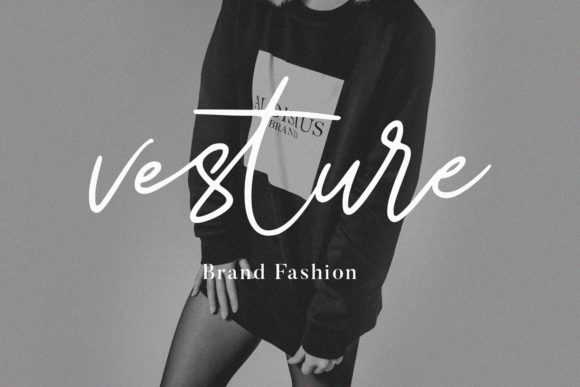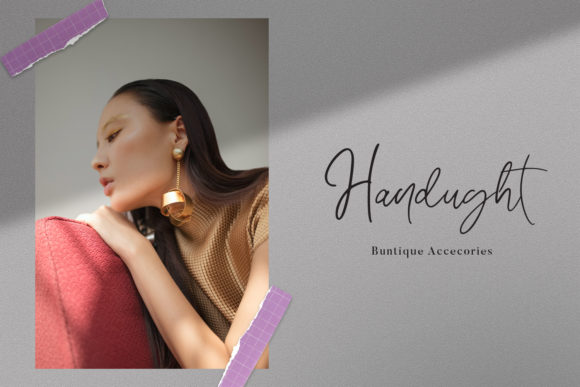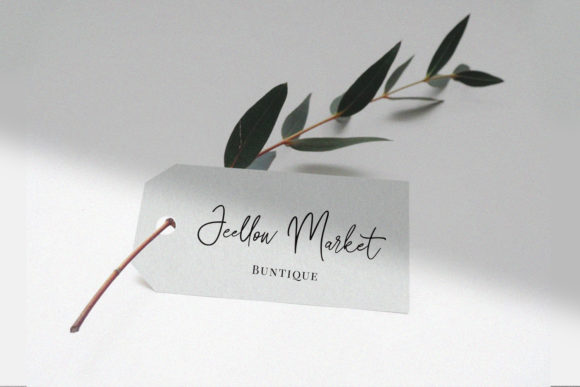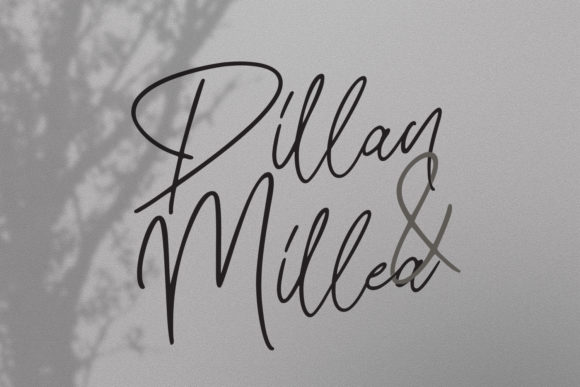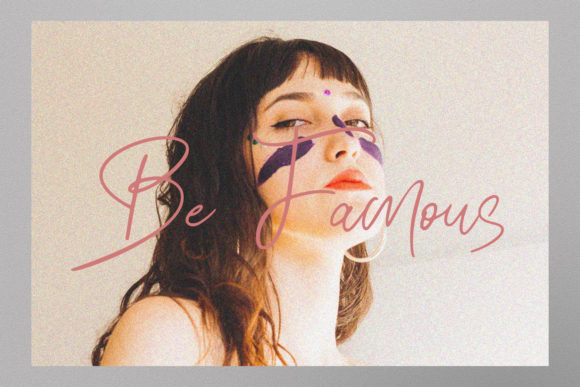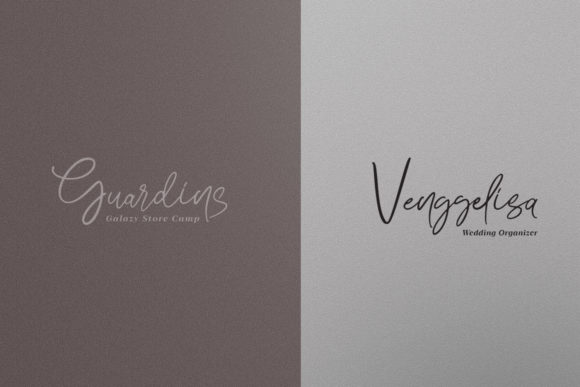
The Perfect Signature: Elevate Your Design with Bunggi Signature Font
Have you ever been in the middle of a design project, scrolling through font options, and suddenly, you stumble upon the perfect script font that screams “me”? That’s what happened to many designers when they discovered Bunggi Signature Font. Its unique blend of modernity and elegance makes it the perfect addition to any design project.
Bunggi Signature Font is more than just a font – it’s a statement piece that adds a personal touch to your designs. Whether you’re a graphic designer, a digital artist, or a branding expert, this font is sure to elevate your work and leave a lasting impression. With its versatility and sophistication, Bunggi Signature Font is a valuable asset for any designer looking to take their designs to the next level.
Bunggi Signature Font Key Features
- Unique Characteristics: Handwritten, cursive, and connected script style, ideal for signatures, quotes, and creative text
Bunggi Signature Font Review
Overall, I’m impressed with the Bunggi Signature Font. It’s a beautifully crafted font that adds a touch of elegance to any project. Here are some things that really stand out:
- ✨ The unique design elements are well-executed, giving the font a distinctive look.
- ✨ The font is highly versatile and can be used for a variety of purposes, from branding to digital graphics.
- ✨ The font is well-suited for both personal and professional projects.
- ⚠️ The font may not be suitable for very small text sizes, as some of the design elements can become distorted.
- ⚠️ The font may require some adjustments in certain software applications, as it doesn’t always render perfectly.
Overall, I think the Bunggi Signature Font is a great addition to any designer’s toolkit. With a little bit of creativity and experimentation, it can really help to elevate your projects and make them stand out.
Getting the Most Out of the Bunggi Signature Font
To get the most out of the Bunggi Signature Font, experiment with different font sizes and styles to create a unique and eye-catching design.
Use the font in combination with other design elements, such as colors and graphics, to create a cohesive and professional-looking design.
The Bunggi Signature Font is ideal for:
1. Logos and branding materials.
2. Headings and titles in designs.
3. Body text in designs, such as in blog posts or social media graphics.
Alternatives to Bunggi Signature Font
Great Vibes is a modern, elegant script font that works well for invitations, posters, and branding materials. It’s perfect for creating a sophisticated and luxurious feel. Compared to Bunggi Signature Font, Great Vibes has a more refined and polished appearance, making it suitable for high-end projects.
2. Dancing Script
Dancing Script is a playful, cursive font that’s ideal for creating a whimsical and fun atmosphere. It’s great for projects that require a touch of personality, such as social media graphics, blog posts, and advertising materials. Unlike Bunggi Signature Font, Dancing Script has a more dynamic and expressive feel, making it perfect for projects that need a bit of flair.
Carolyna Pro is a elegant, handwritten font that’s perfect for creating a sophisticated and refined look. It’s great for projects that require a touch of luxury, such as branding materials, packaging design, and high-end marketing materials. Compared to Bunggi Signature Font, Carolyna Pro has a more polished and refined appearance, making it suitable for high-end projects that require a level of sophistication.